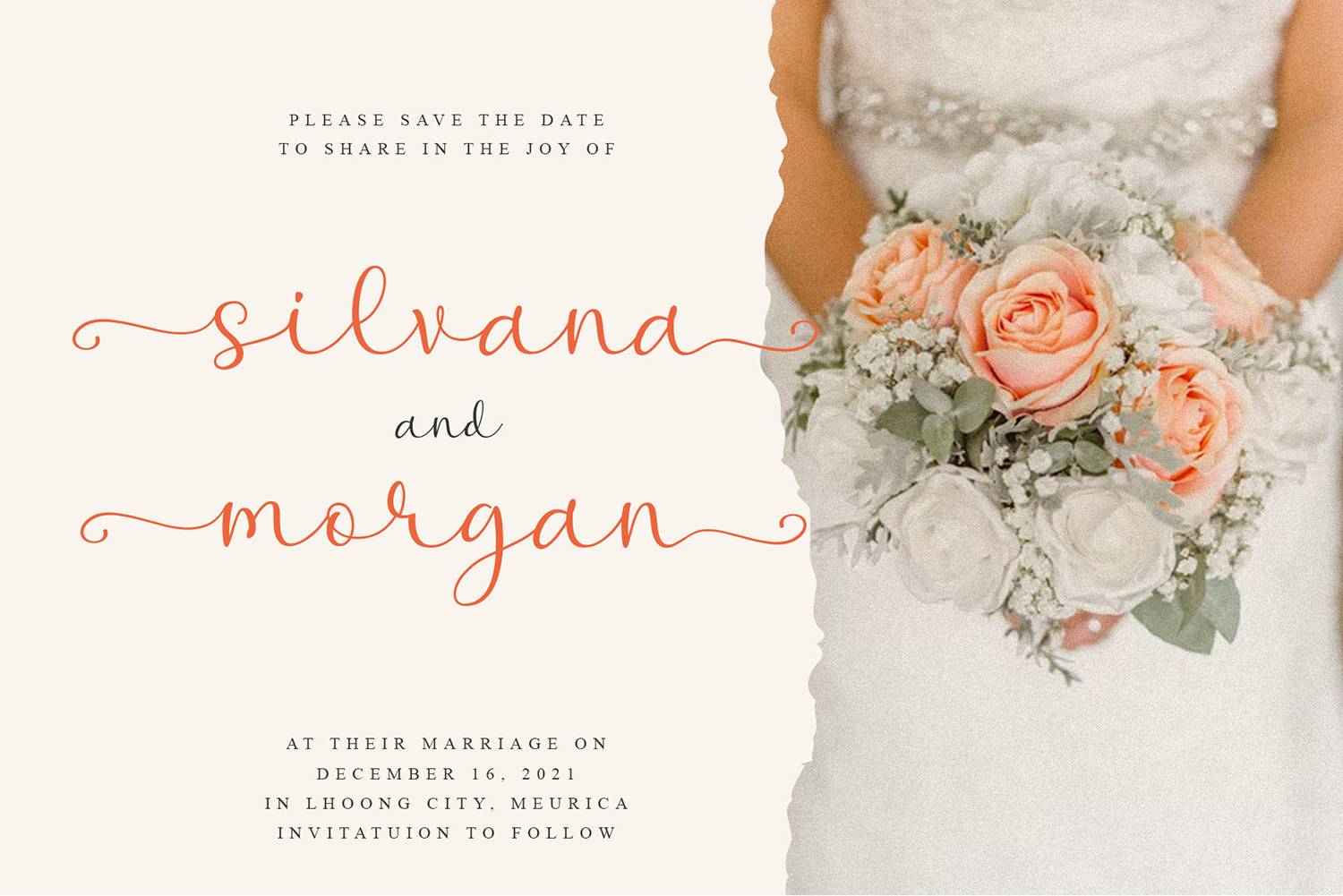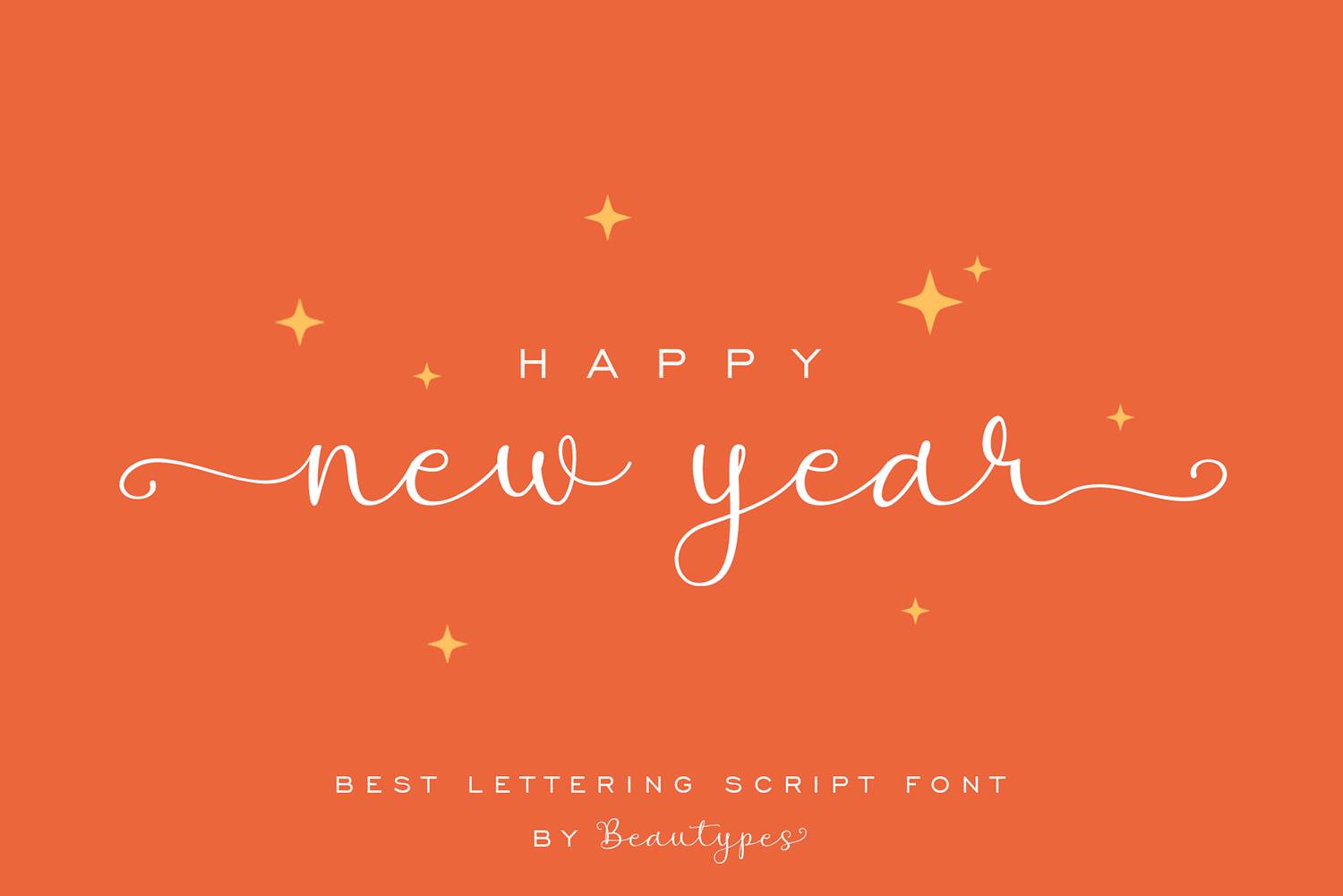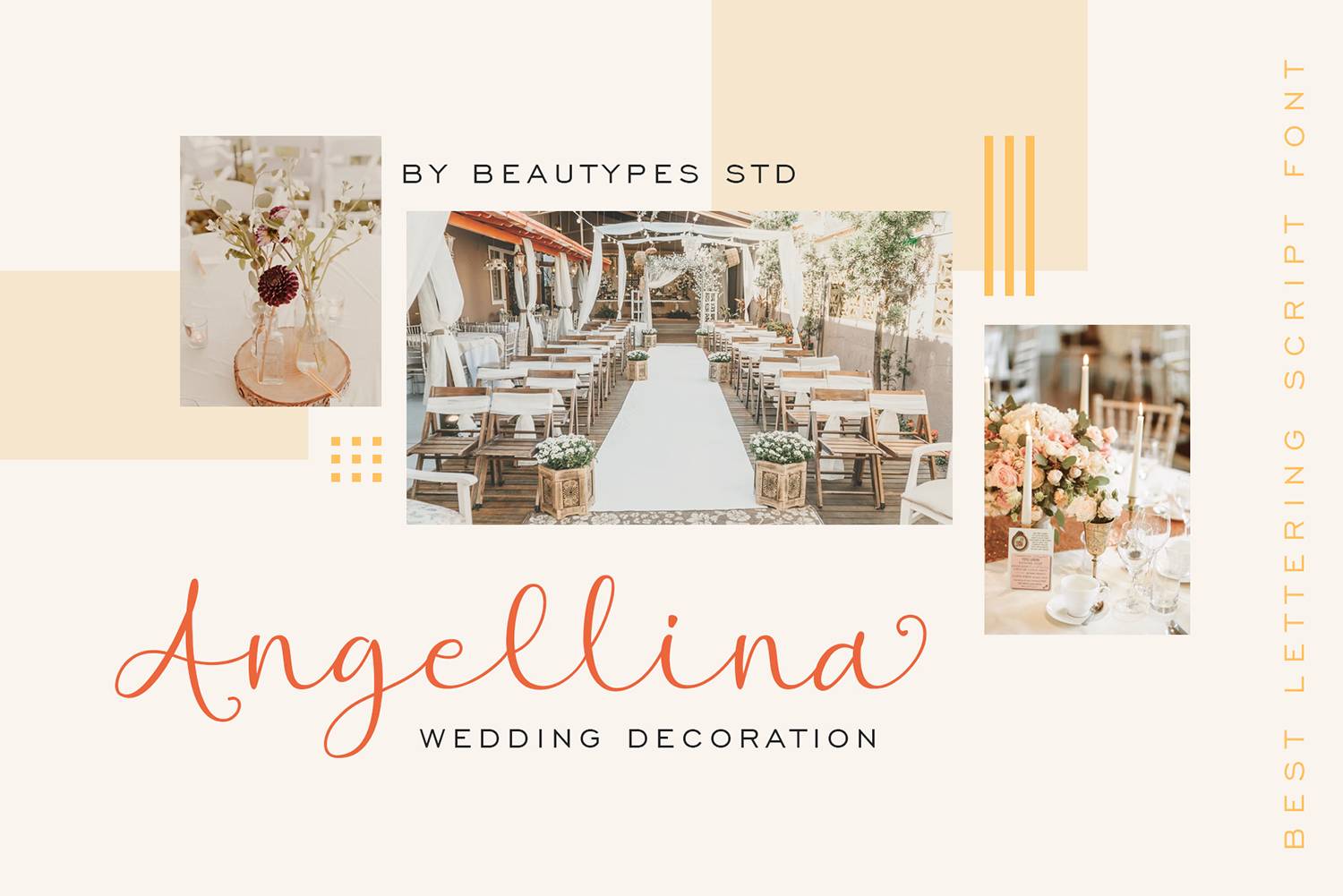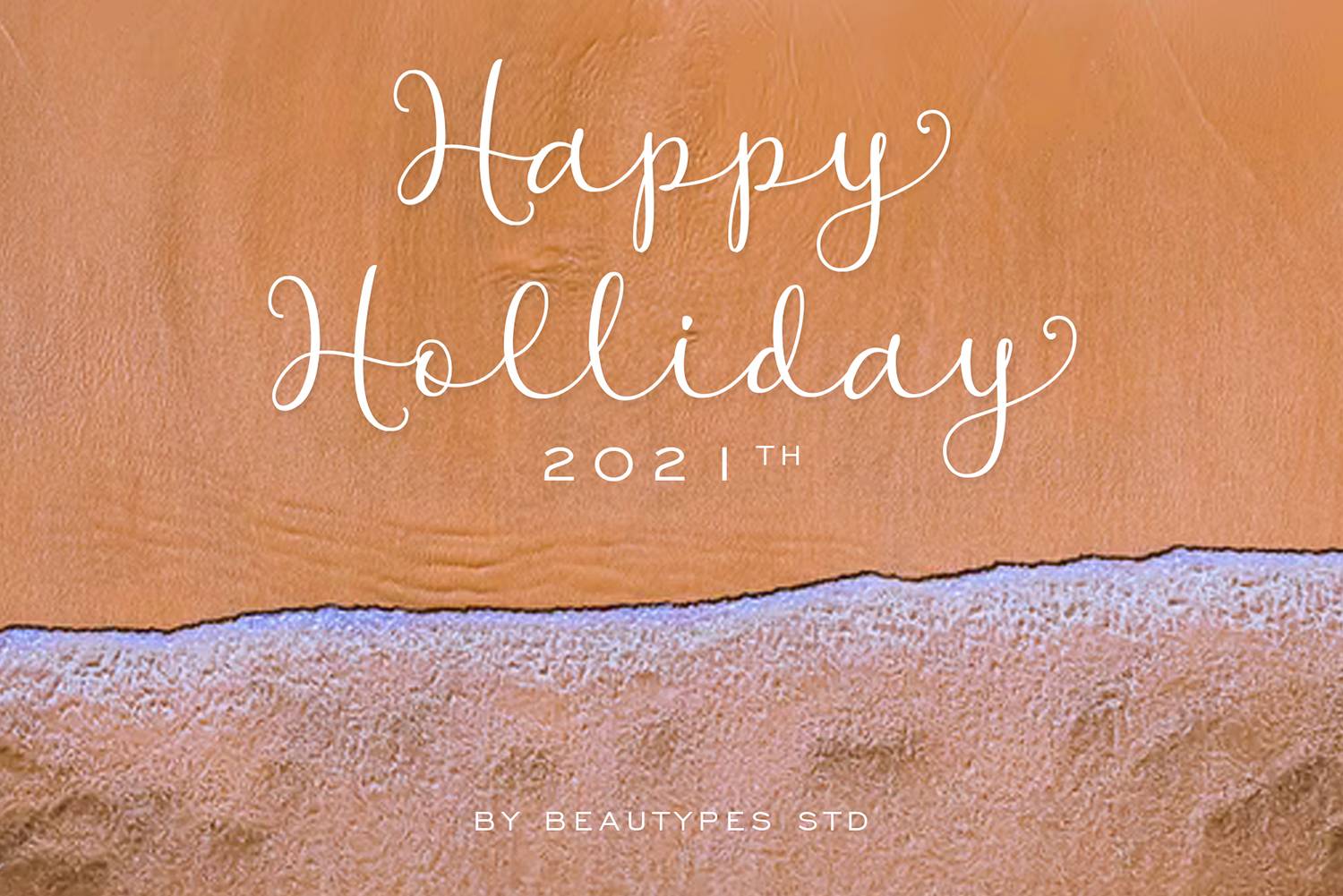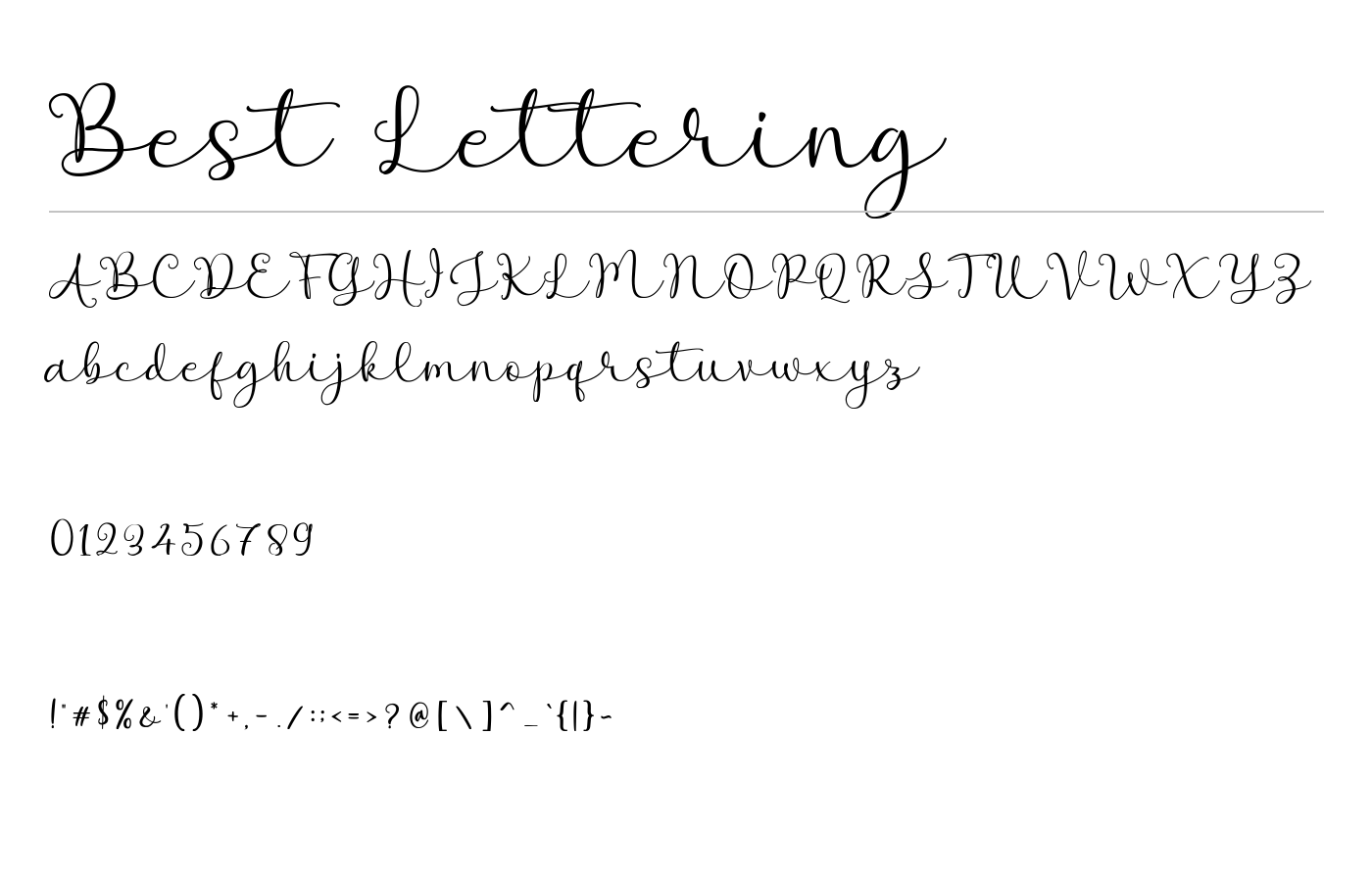
Best Lettering Font is an elegant, delicate script with a handwritten feel, featuring fine, flowing strokes and graceful letterforms that blend cursive charm with refined artistry. Its light weight and airy spacing make it perfect for invitations, branding, and decorative projects where a sophisticated, personal touch is desired. This font works beautifully in designs that seek a romantic, stylish, and approachable look.
Best Lettering Font
About Best Lettering Font
| Font family | Best Lettering Font |
| Designer | Beautypes Studio |